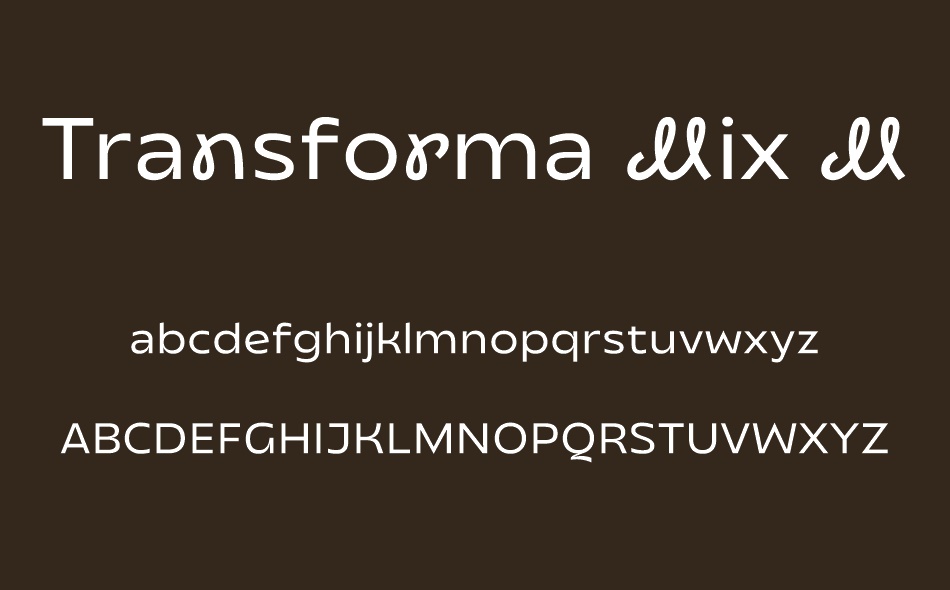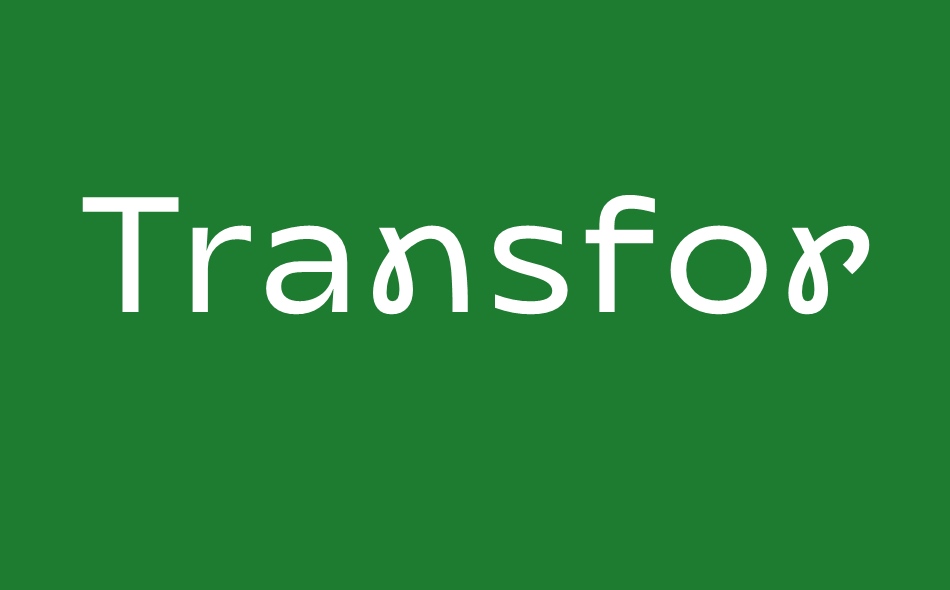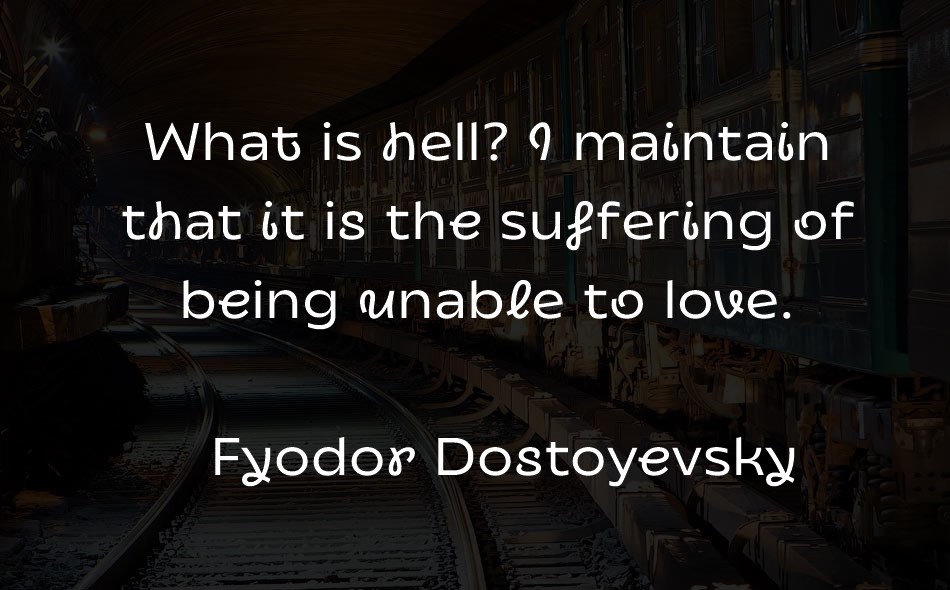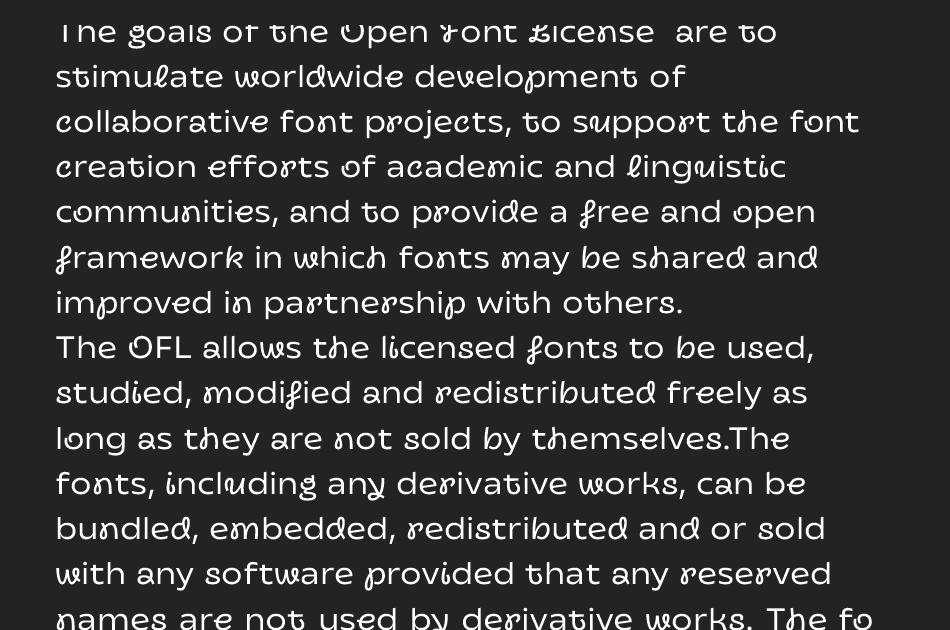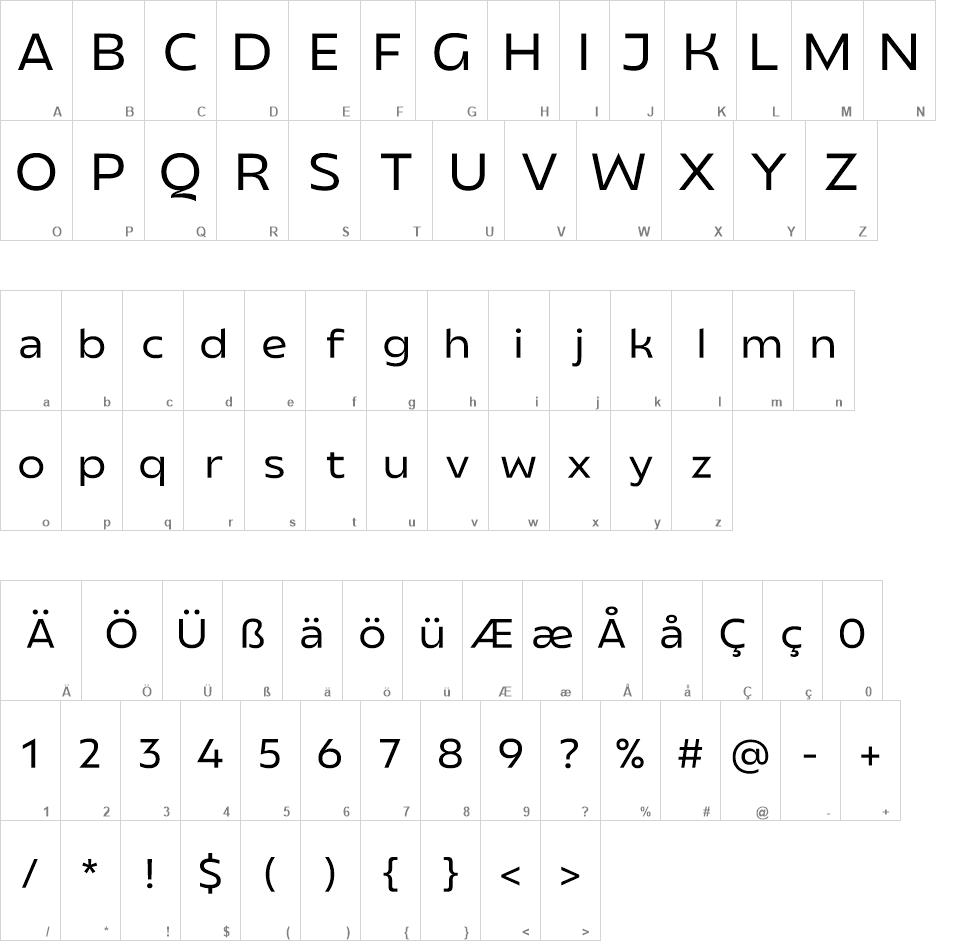
Transforma Mix font
Meet Transforma, a font family that started from a spark of inspiration by our founder, Svet, and flourished under the creative hands of Type Director Viktoria Usmanova and Senior Type Designer Ani Dimitrova. Transforma is all about blending worlds it combines a sleek sans serif with a smooth, handmade script, and introduces a third player, The Mix, where these styles dance together in harmony.